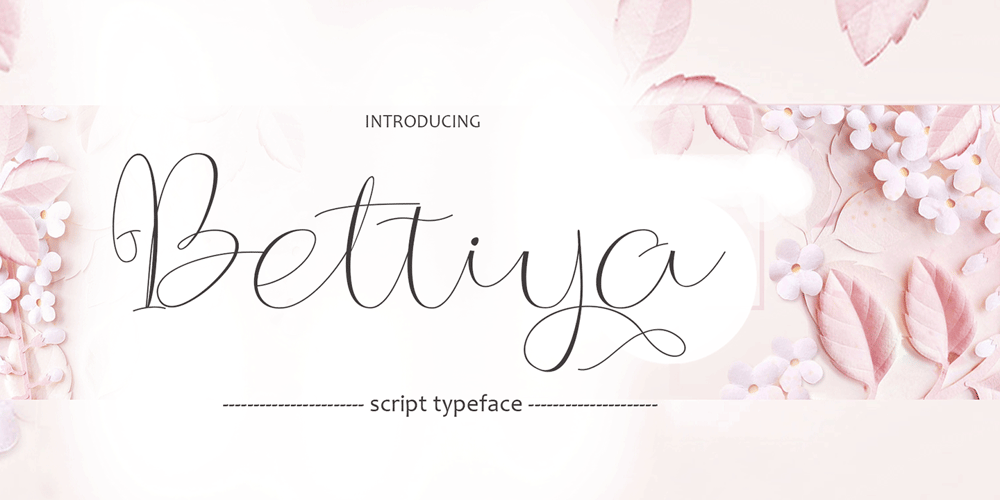
Bettiya Font Family was designed by Muhammad Akbar and published by Sinfa. Bettiya contains 1 styles and family package options. Bettiya is a new modern script font with an irregular base line. It’s trendy and feminine. Bettiya Script looks clean and beautiful in a variety of designs such as in invitations, thank you cards, quotes, greeting cards, T-shirt designs, product labels, branding, logos, business cards, and more. Bettiya includes several lowercase alternatives and has multi-lingual support.